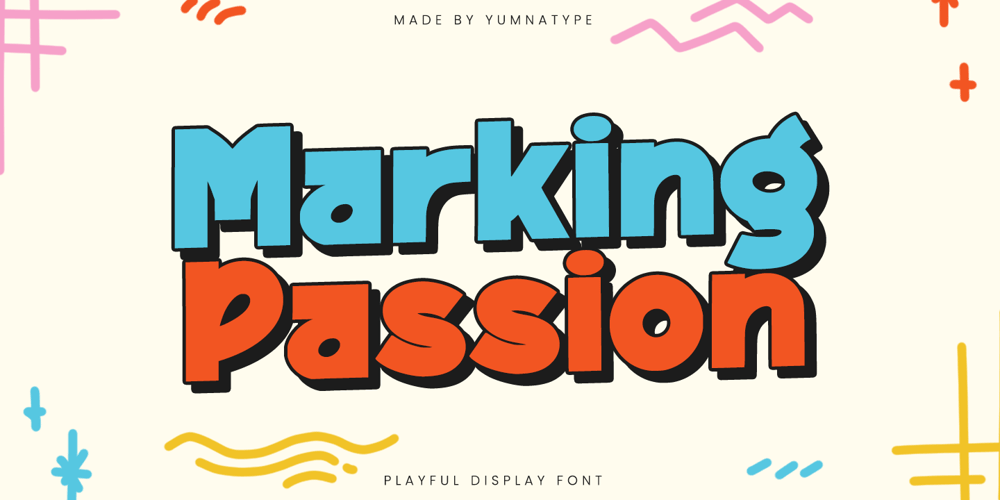
Marking Passion Font Family was designed by Donis Miftahudin and published by Yumna Type. Marking Passion contains 1 styles and family package options. Marking Passion is a captivating display font that combines playful style with robust design elements. Made in a thick weight and low contrast, this font stands out with its rounded yet sturdy shapes, creating a harmonious blend of softness and strength. Let Marking Passion infuse your designs with energy and warmth, bringing a touch of playful boldness to any project. In addition, enjoy the features here.Features: Ligatures Multilingual Supports PUA Encoded Numerals and Punctuations Marking Passion fits in headlines, logos, posters, flyers, branding materials, print media, editorial layouts, and many more designs. Find out more ways to use this font by taking a look at the font preview.Thanks for purchasing our fonts. Hopefully, you have a great time using our font. Feel free to contact us anytime for further information or when you have trouble with the font. Thanks a lot and happy designing.